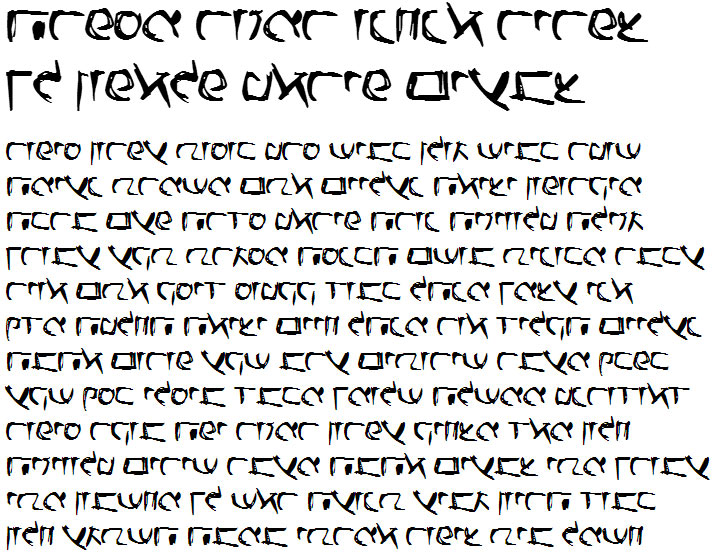
✓ My first Hebrew font was drawn in math class on a crosslined paper using a fine black Pilot pen, my favorite. It was inspired by many English "messy" typefaces. You might say I was a bit jealous of my Swanky friends. The name for this font means "School" in Hebrew slang, and is taken from the Hebrew Beavis & Butthead book, "This Book Sucks".
X_Betzefer Hebrew Font